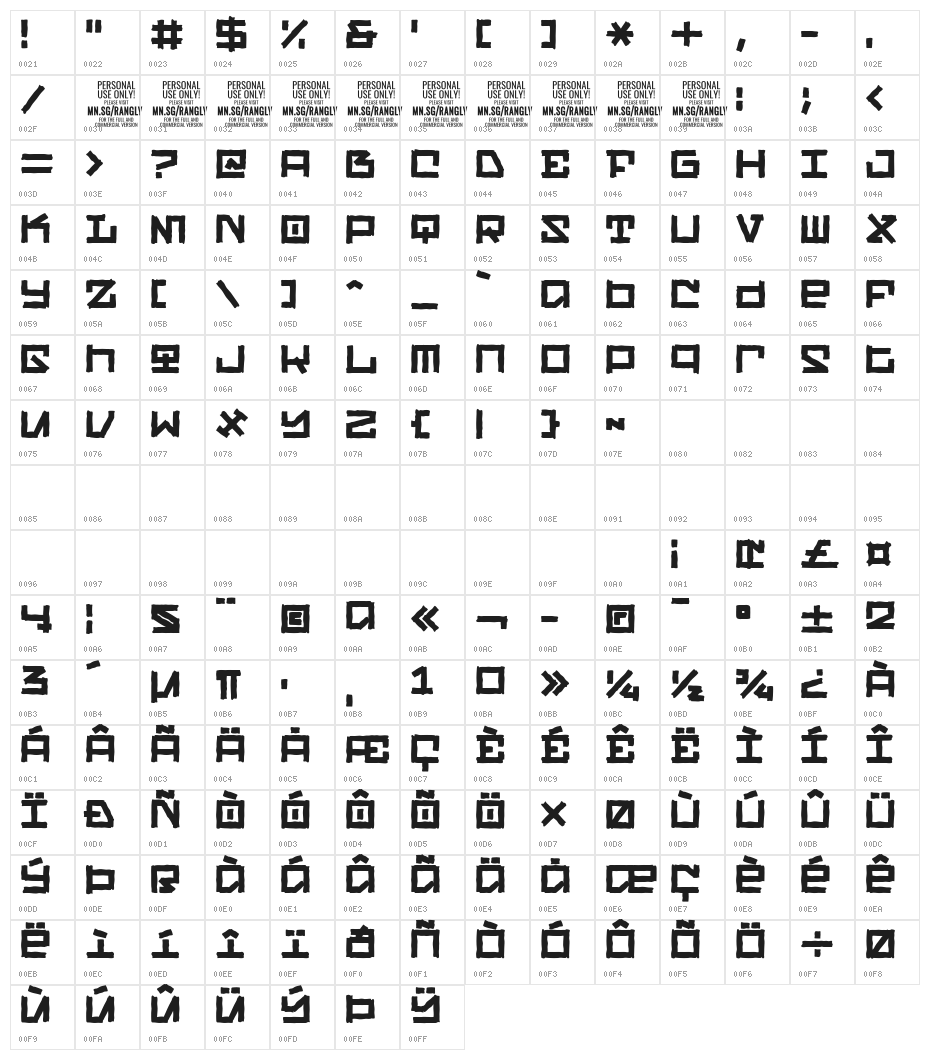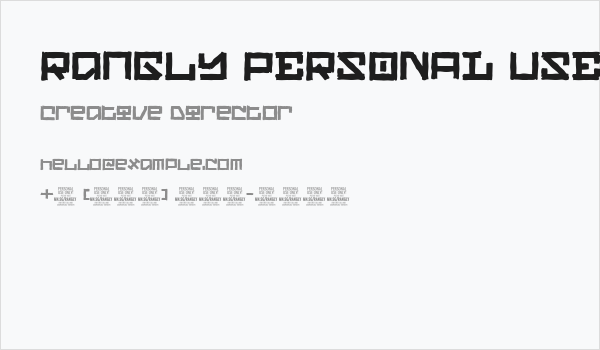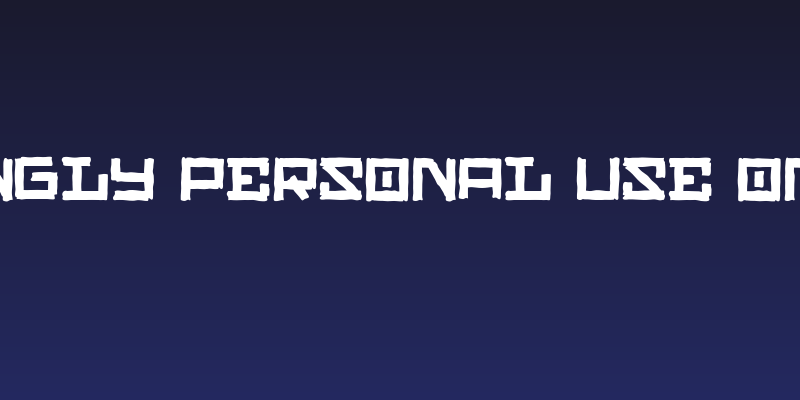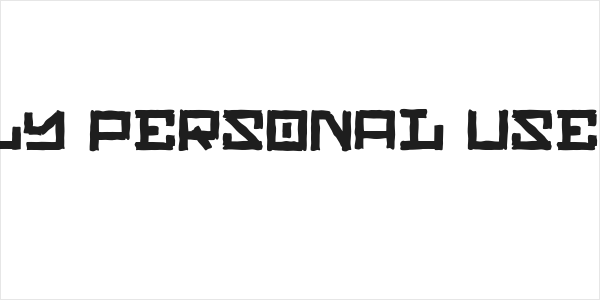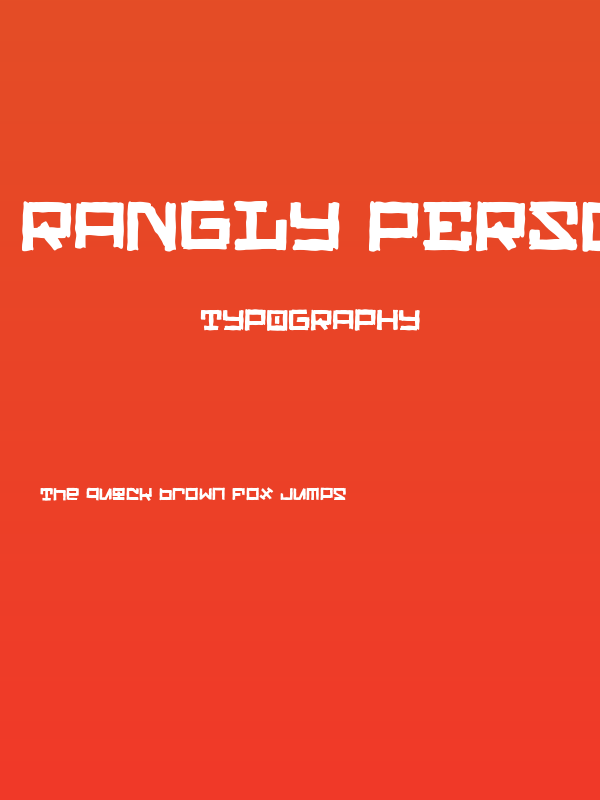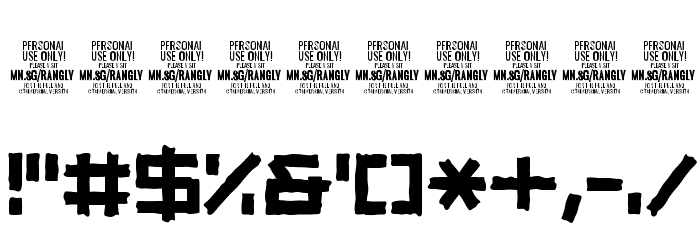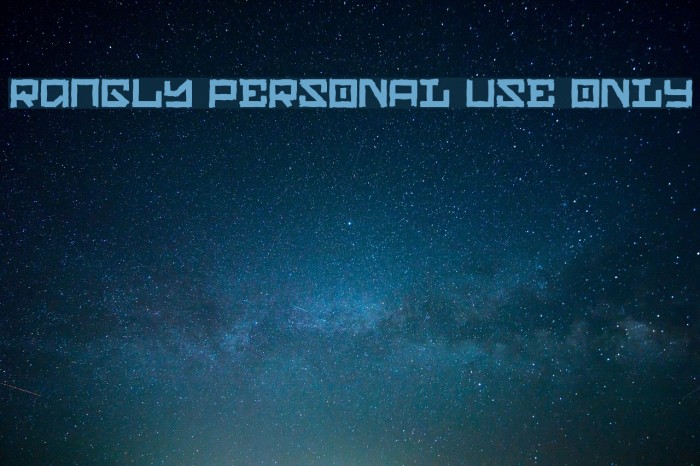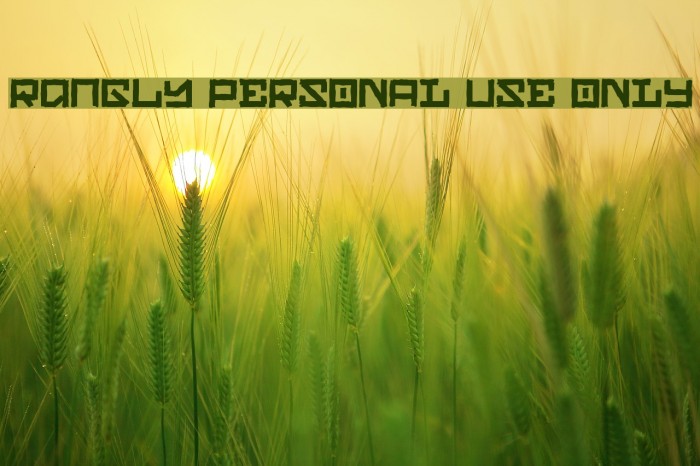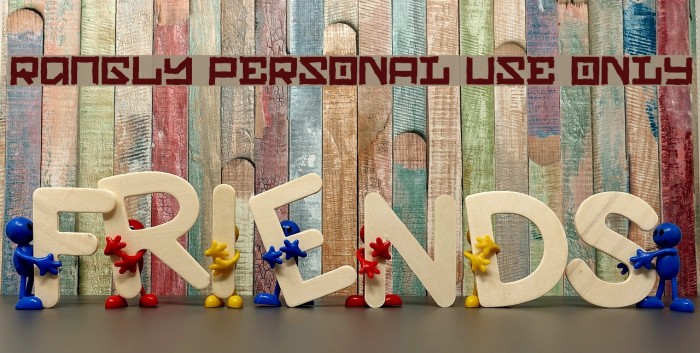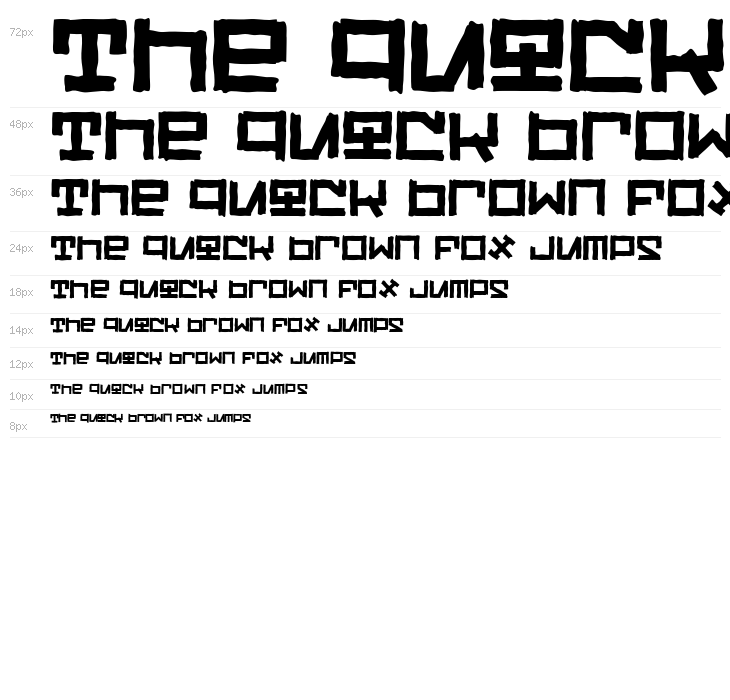
Rangly PERSONAL USE ONLY Font
Rangly PERSONAL USE ONLY Description
This font features a bold and angular design, characterized by its sharp edges and geometric shapes. The uppercase and lowercase letters maintain a consistent style, with a unique, almost stencil-like appearance. The numerals and special characters follow the same design principles, ensuring a cohesive look across all glyphs. The font's distinct style makes it stand out, with a modern and edgy vibe that is both eye-catching and memorable.
| Proposed Projects | Ideal for projects requiring a strong visual impact, such as posters, album covers, or branding for edgy and modern products. |